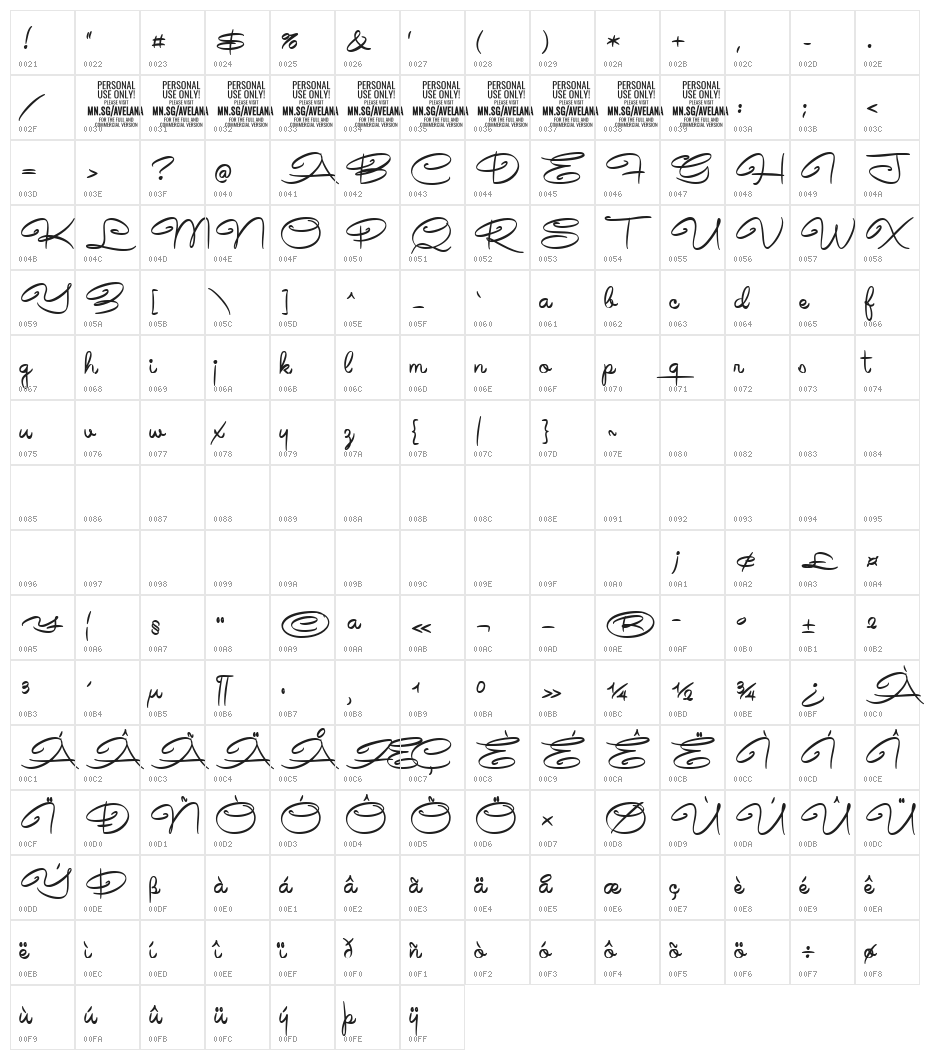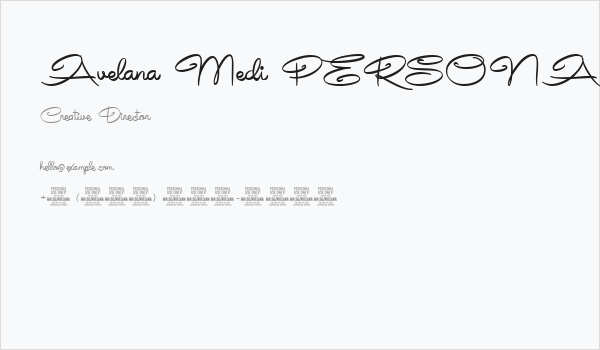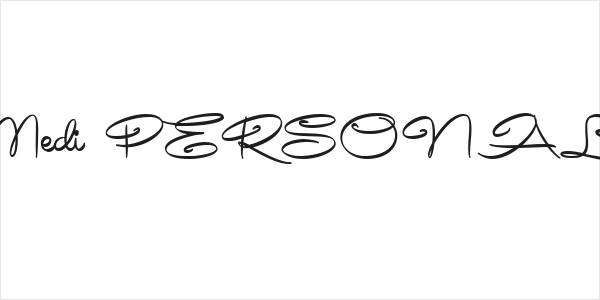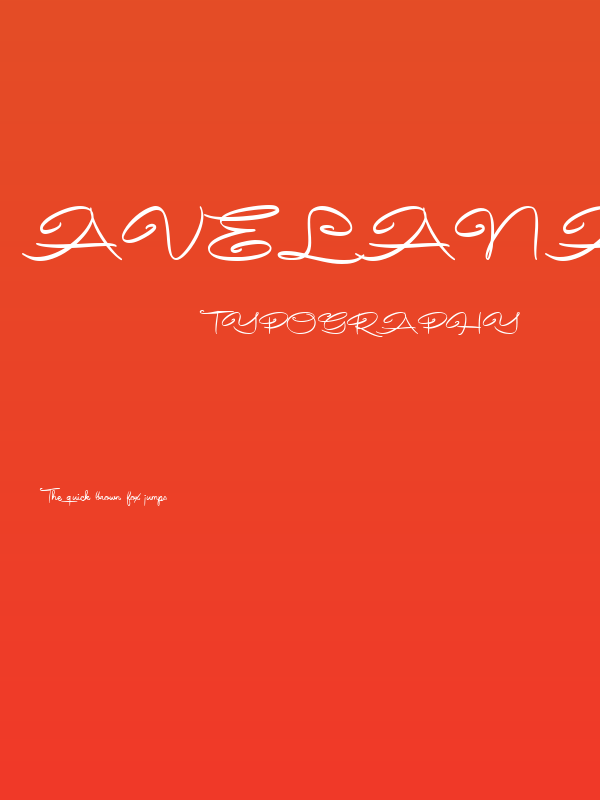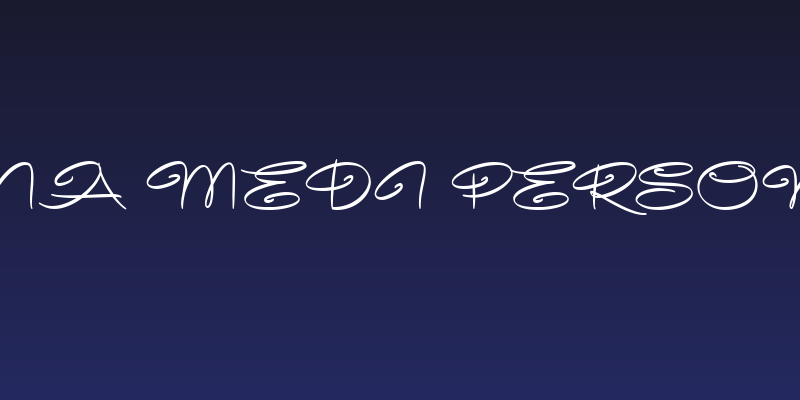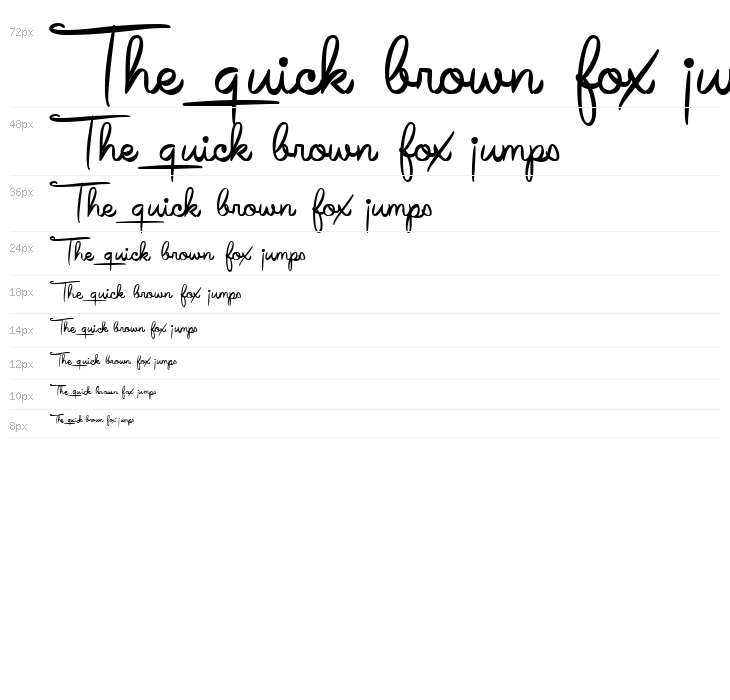
Avelana Medi PERSONAL USE Font
Avelana Medi PERSONAL USE Description
This font features a unique blend of elegance and playfulness, characterized by its flowing, cursive style. The uppercase letters exhibit a graceful, looping design that adds a touch of sophistication, while the lowercase letters maintain a more casual, handwritten feel. The numerals and special characters are crafted with the same attention to detail, ensuring consistency throughout. The overall appearance is both artistic and approachable, making it suitable for a variety of creative applications. Its distinct style is perfect for projects that require a personal touch, such as invitations, greeting cards, and branding materials.
| Proposed Projects | Ideal for invitations, greeting cards, branding, and any project needing a personal, artistic touch. |